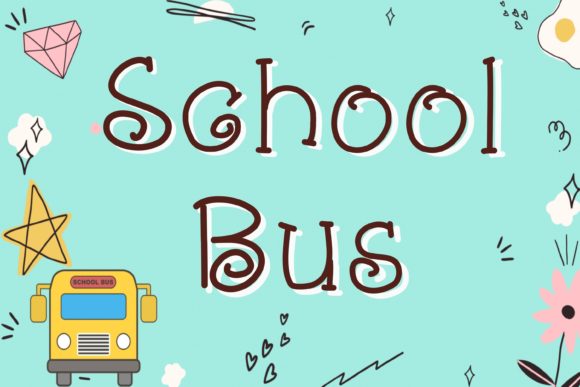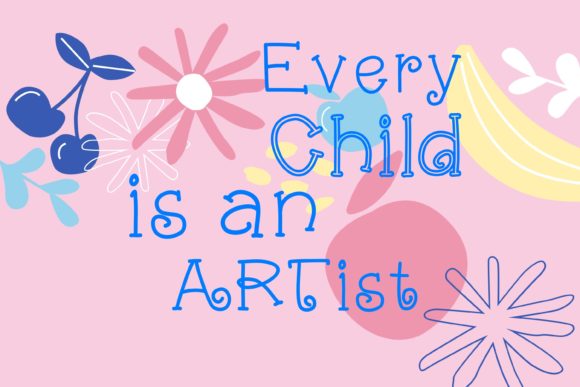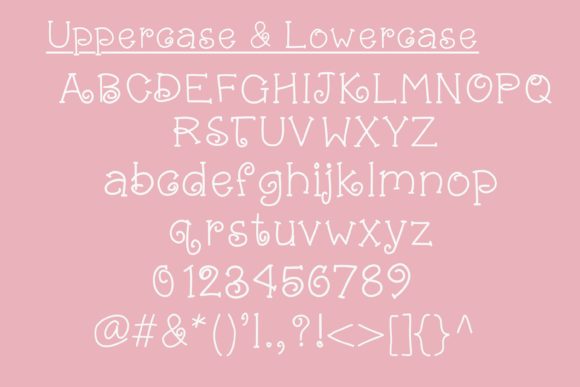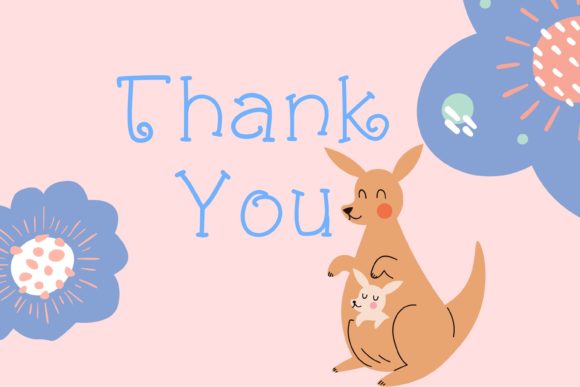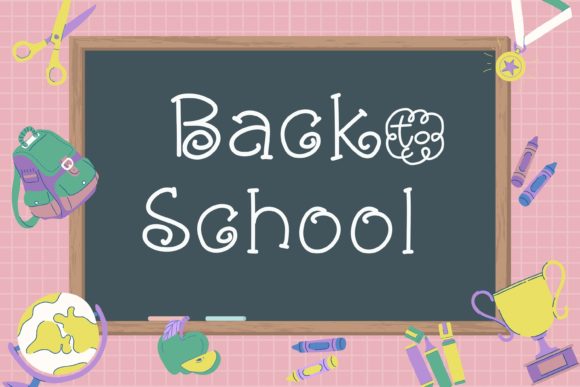
School Bus Font
About School Bus Font
School Bus is a thin lettered, whimsical and quirky handwritten font. No matter the topic, this font will be an incredibly asset to your fonts’ library, as it has the potential to elevate any creation.